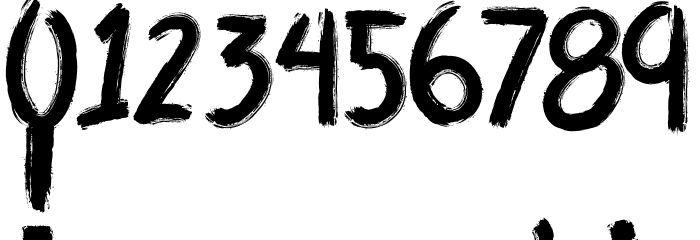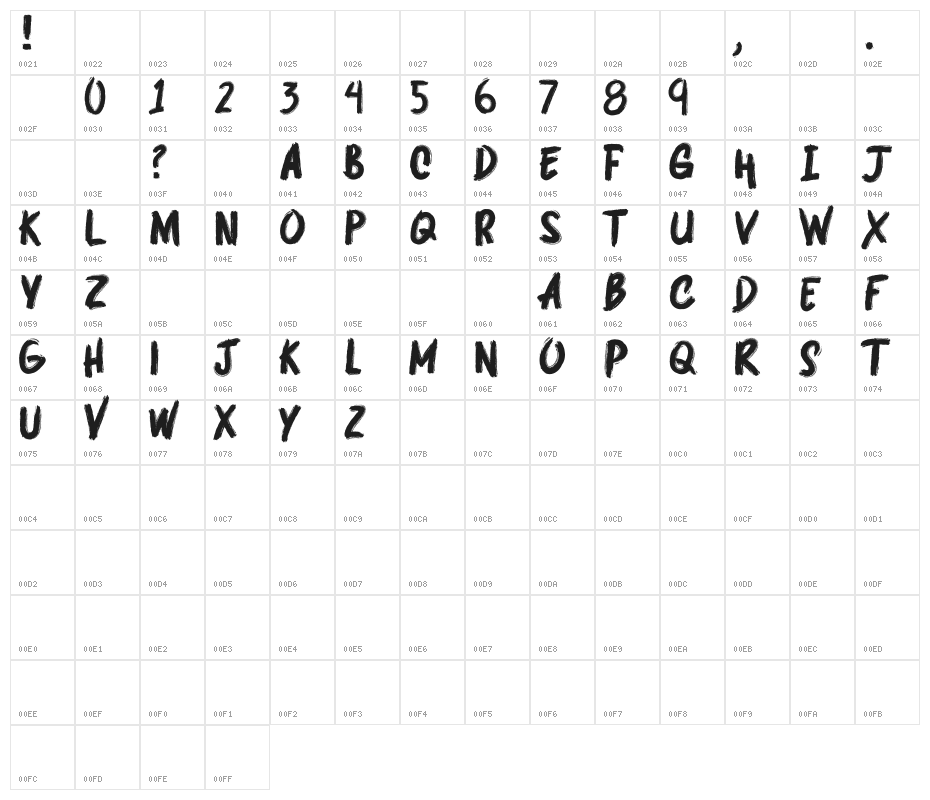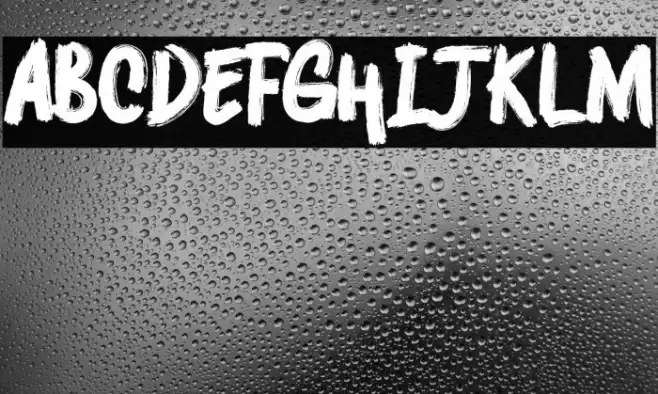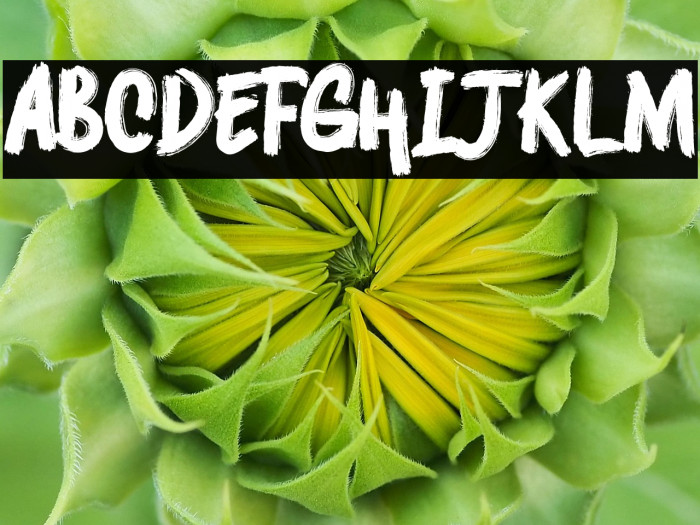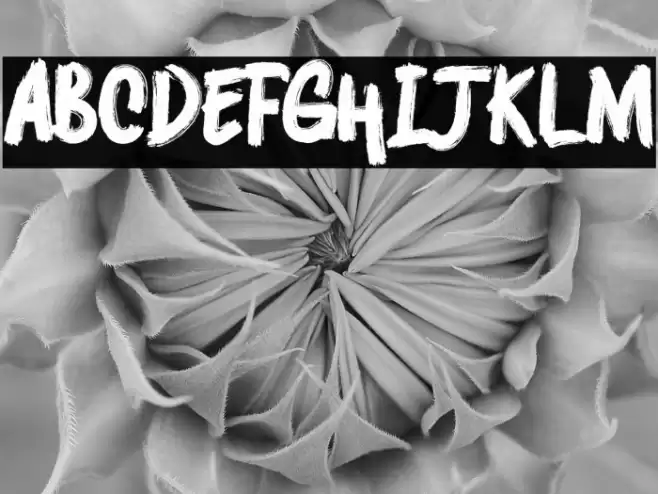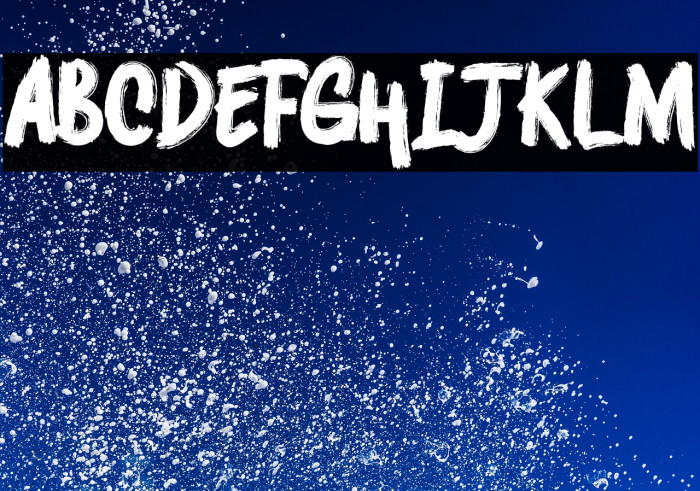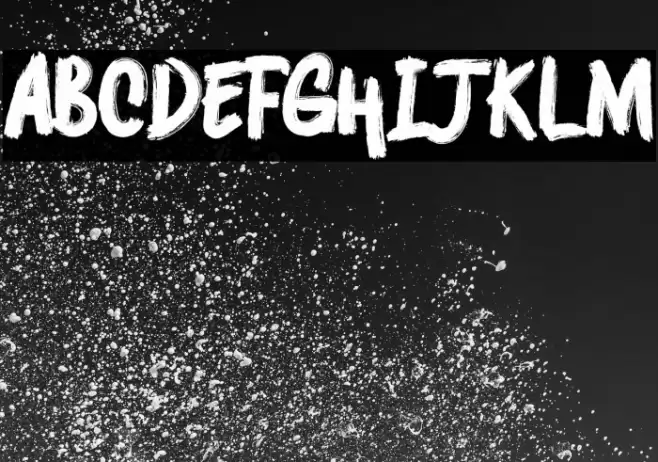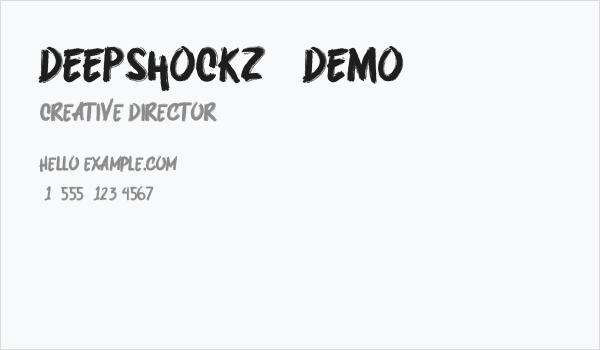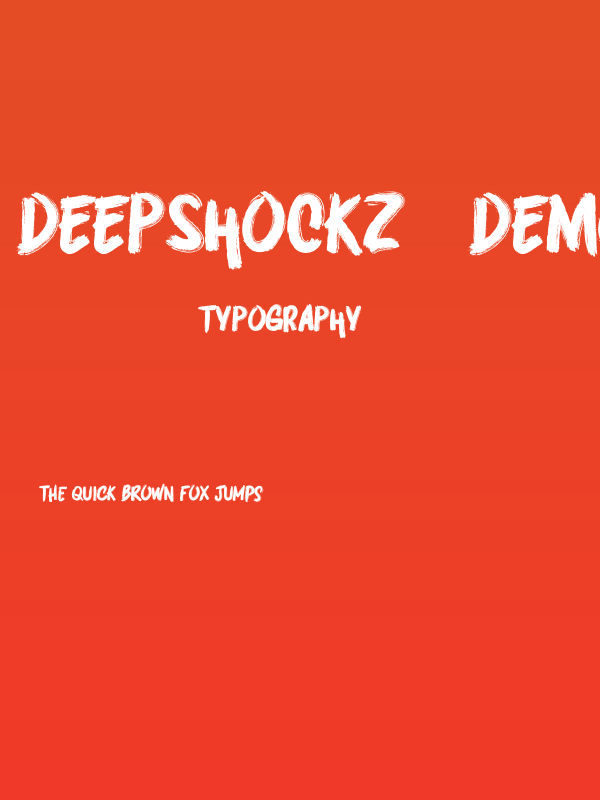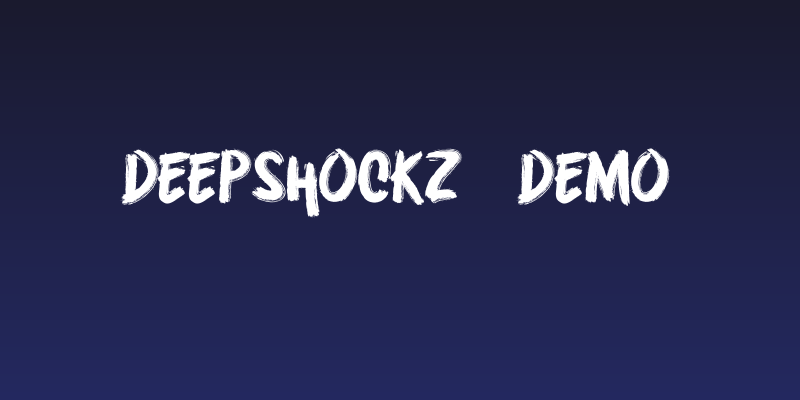
This font features a bold and expressive brush style, characterized by its dynamic and energetic strokes. The letters are crafted with a hand-painted appearance, giving them a raw and artistic feel. The uppercase and lowercase letters maintain a consistent style, with each character exhibiting unique brush textures and variations. The numbers and special characters follow the same aesthetic, ensuring a cohesive look across all elements. This font's boldness and artistic flair make it stand out, perfect for projects that require a strong visual impact.
| Proposed Projects | Ideal for posters, album covers, branding, and any creative projects that require a bold, artistic touch. |